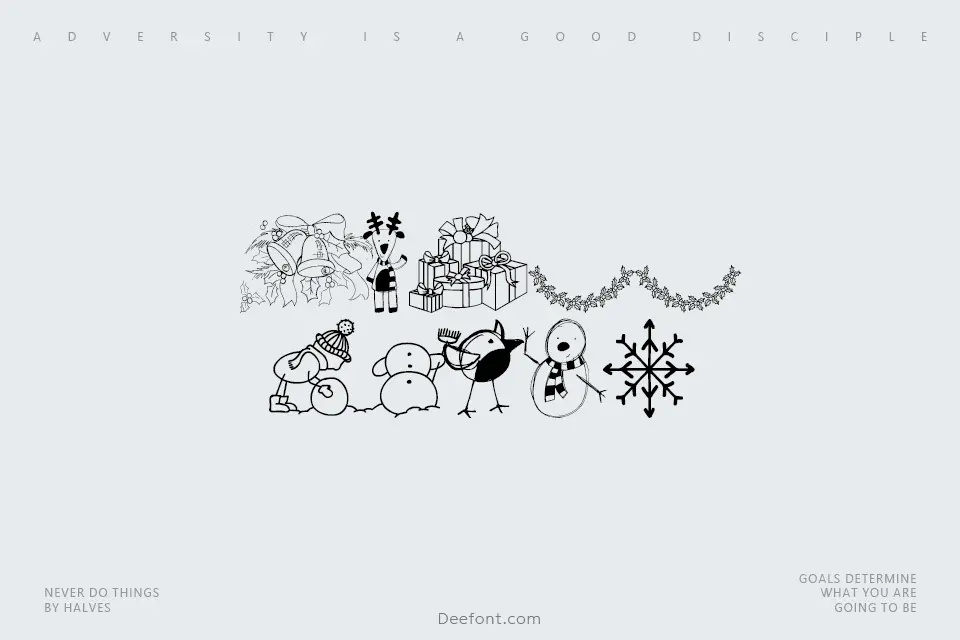
Xmas Cartoon Font
Xmas Cartoon is a festive and whimsical display font perfect for holiday-themed designs. This playful typeface captures the cheerful spirit of Christmas with its cartoon-style characters, making it an excellent choice for greeting cards, festive banners, holiday posters, and seasonal branding projects. With 236 glyphs, Xmas Cartoon provides comprehensive character support for creative holiday typography. The font’s friendly and approachable design brings warmth and joy to any Christmas-related project, transforming text into delightful visual elements.